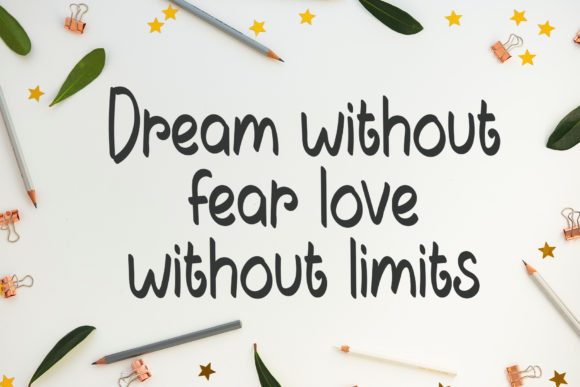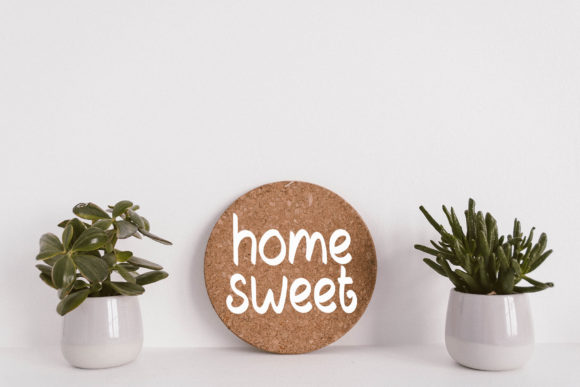
Disney Channel Font
db-ku.com - Script & Handwritten -- Disney Channel is a cute and casual handwritten font. This font was particularly crafted for those who need a beautiful and refreshing look to their designs.